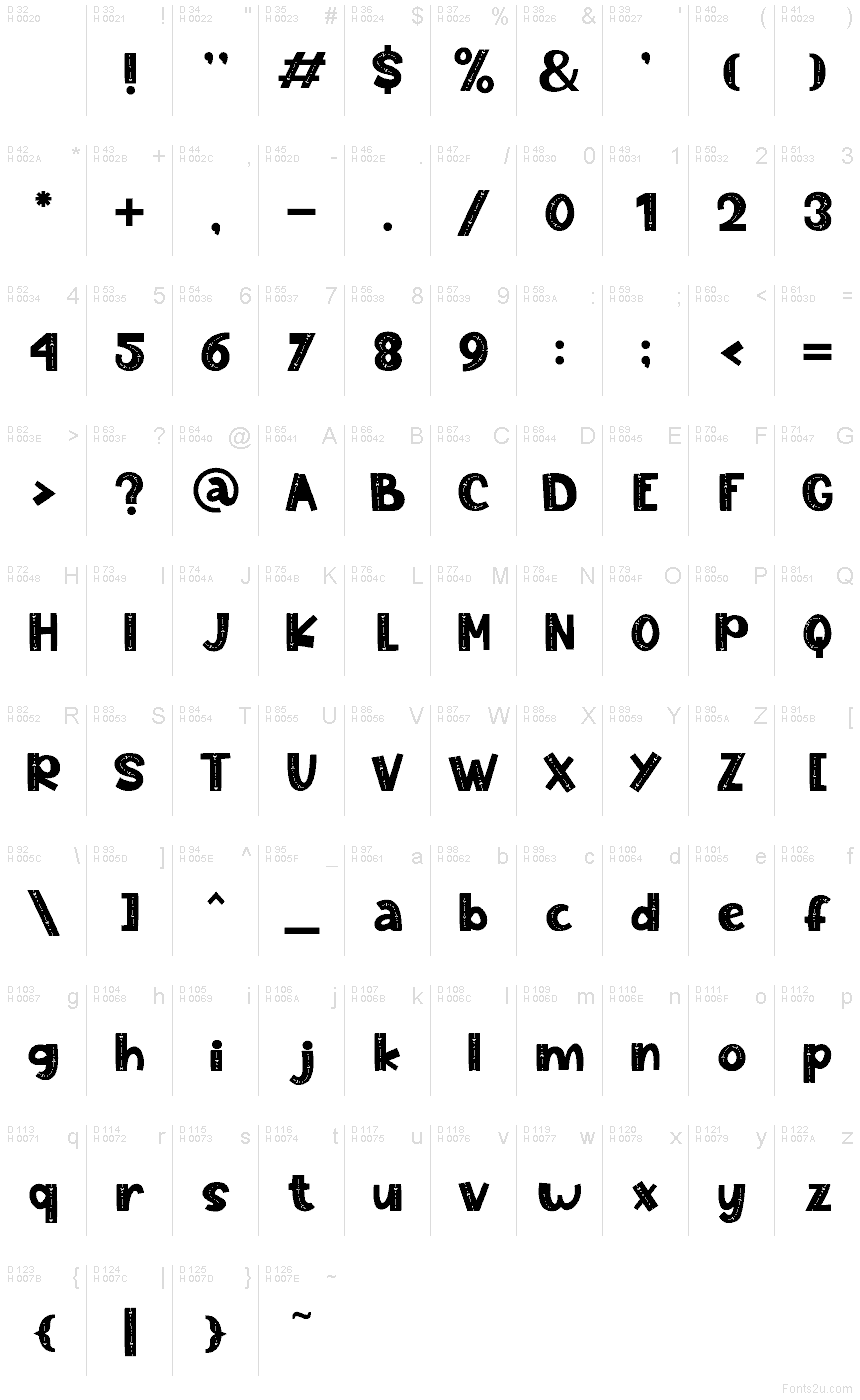
Frosty Faktur Deco 2
Frosty Faktur Deco 2 font by PutraCetol Studio is a free holiday decorative typeface that turns every word into a snowy scene. Part of the Frosty Faktur family, its chunky, rounded letters are dusted with distressed textures and tiny cut-out shapes that feel like frosted glass or chalk on a cold window. The look is cozy and playful rather than serious, giving your Christmas designs that handmade, hot‑cocoa energy without feeling messy or hard to read.
Using Frosty Faktur Deco 2, your titles and short phrases instantly feel like they belong on gift wrap, Christmas cards, party invitations, advent calendars, and social media posts. This free font also works beautifully for kids’ crafts, classroom printables, and festive labels or packaging. Let it handle the big, cheerful words and pair it with a clean sans serif in smaller sizes to keep everything readable while the Frosty Faktur magic takes center stage.